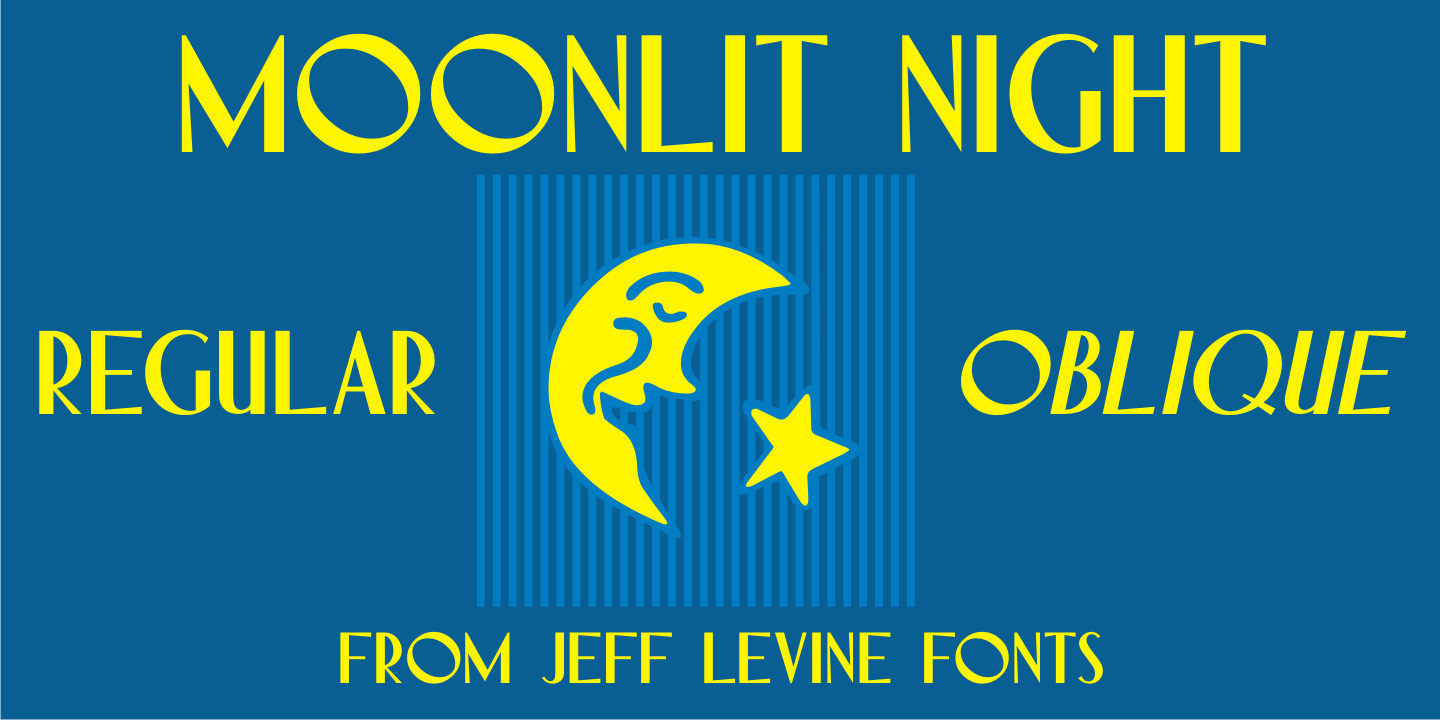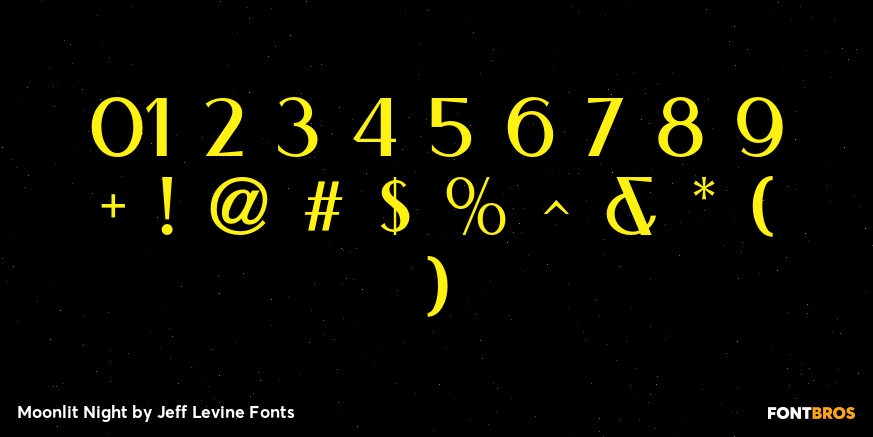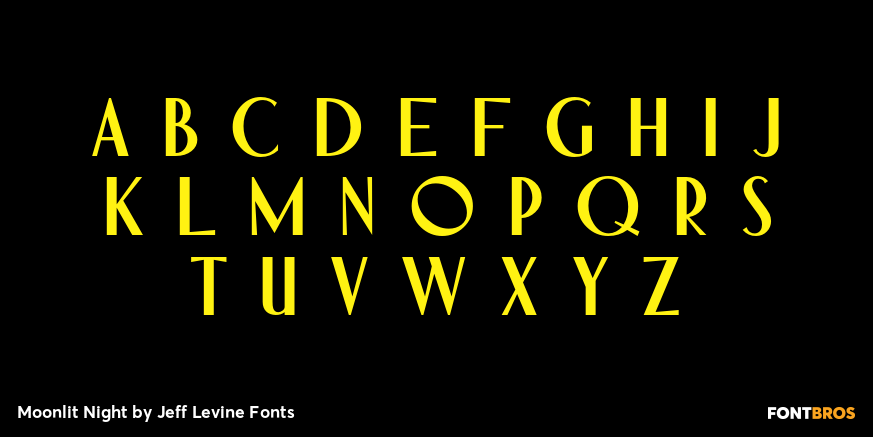
Moonlit Night
The simple, hand lettered sans serif title on the 1935 sheet music for 'Campus Moon” was the design model for Moonlit Night JNL, which is available in both regular and oblique versions.